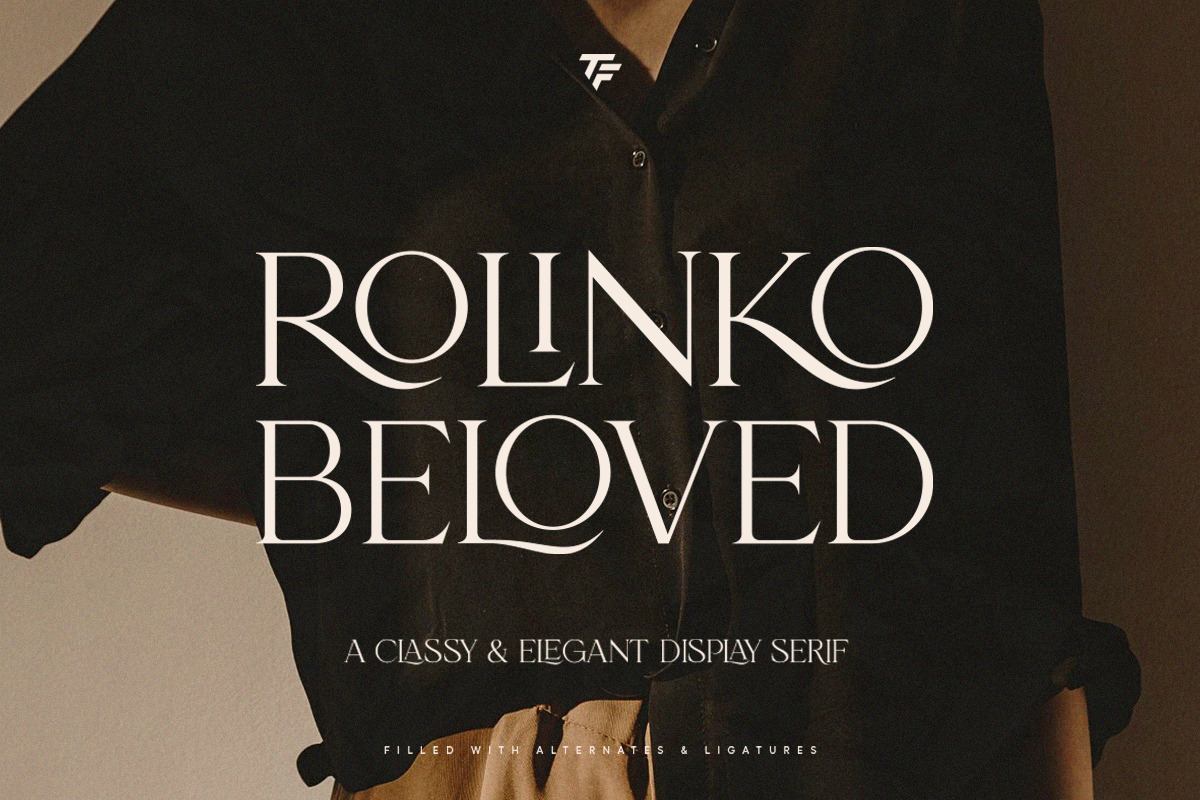
Rolinko Classy Elegant Serif Font Free Download is a sophisticated typeface that exudes refinement and timeless beauty. With its classic serif structure, smooth curves, and modern elegance, this font is perfect for upscale branding, editorial layouts, wedding invitations, packaging, and logos that demand a polished, high-end aesthetic.
Whether you’re crafting a luxury brand identity, designing a chic magazine spread, or creating an elegant product label, Rolinko brings a touch of class and sophistication to your typography. It’s the perfect font for designers seeking a seamless blend of classic beauty and modern style.